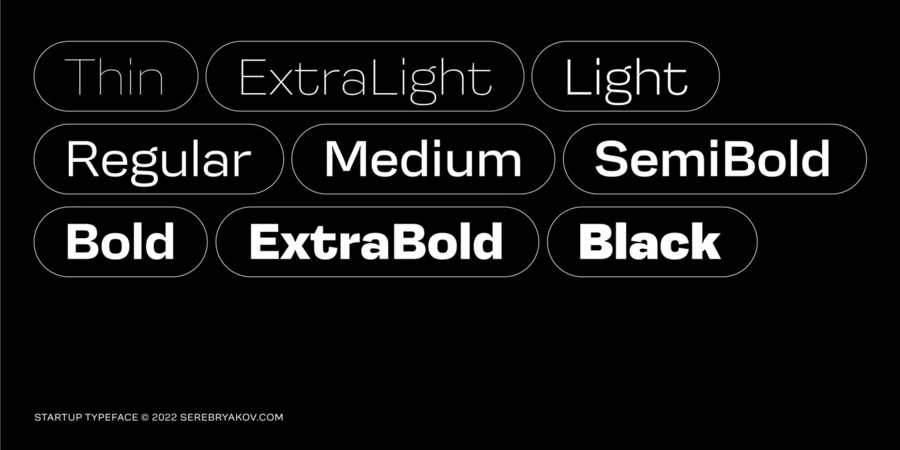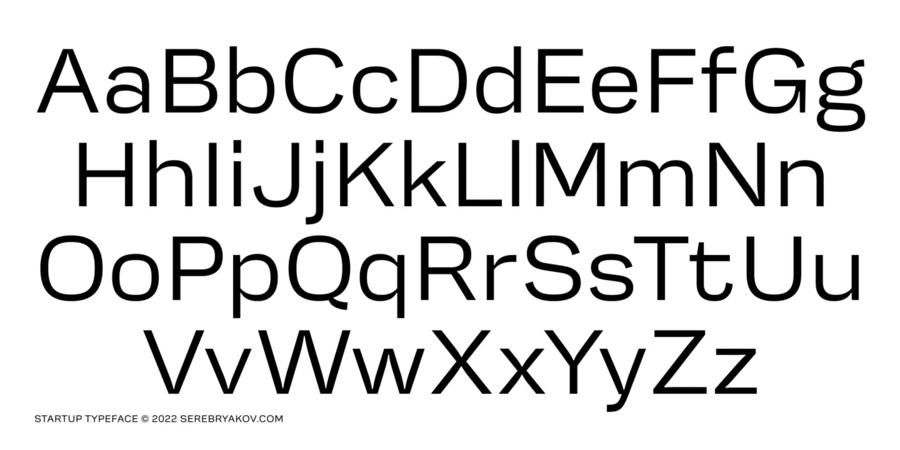
About StartupStartup is a nine style type famaly. It combines the aesthetics of gothic sans and Neo-grotesques. Created specifically for the creation of startup identity. When you need something that doesn't scream, but has personality. This type family can be used in the design of the logo, as well as apply it to headlines and secondary texts. Font style Startup Extra Light is free for any commercial and private use. The typeface was designed by Denis Serebryakov in 2022.
engineering, accurate, logical, flat, urban, high-quality, west, modern, fashionable, cold, thin, easy, weightless, transparent, fragile, futuristic, wire, chilly, space, business, serious, stable, static, globalized, globalistic, technically, fresh, clear, crisp, schematic, strict, cutting, simple, dynamic, self-assured, reliable, sportive, important, convincing, motivating, solid, reputable, strong, iron, steel, lasting, robust, manly, powerful, authoritative, notable, heavy, industrial, technogenic, tough, splashy, bright, active, sharp, severe, ambitious, significant, formidable, durable, good quality, dense, technical, loud, daring, brutal, urbanistic, independent, resolute, vigorous, ironic, pretentious, healthy, rude
device, gadget, design, scheme, technology, innovations, city, sci-fi, space, equipment, science, Internet, mobile communications, IT specialist, IT, engineer, architecture, constructor, medicine, society, coworking, business, transport, airport, Metro, medicines, finance, astronomy, chemistry, physics, computer game, car, fuel, retail, store, advertising, police, pharmacy, hardware, computer, Lockdown, logistics, machine tool, mechanical engineering, industry, energy industry, power station, sport, tool, motor, engine, TV, footwear, factory, metallurgy, urban studies, jeans Typeface associated with age: